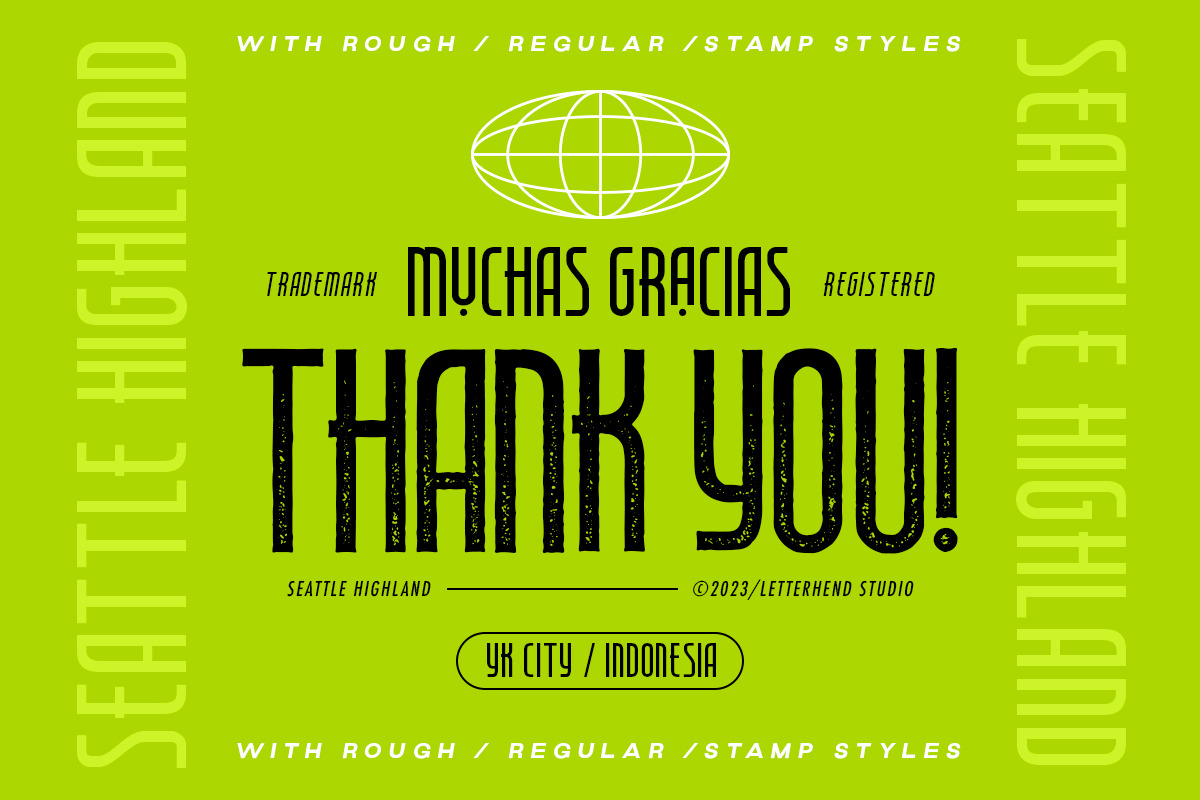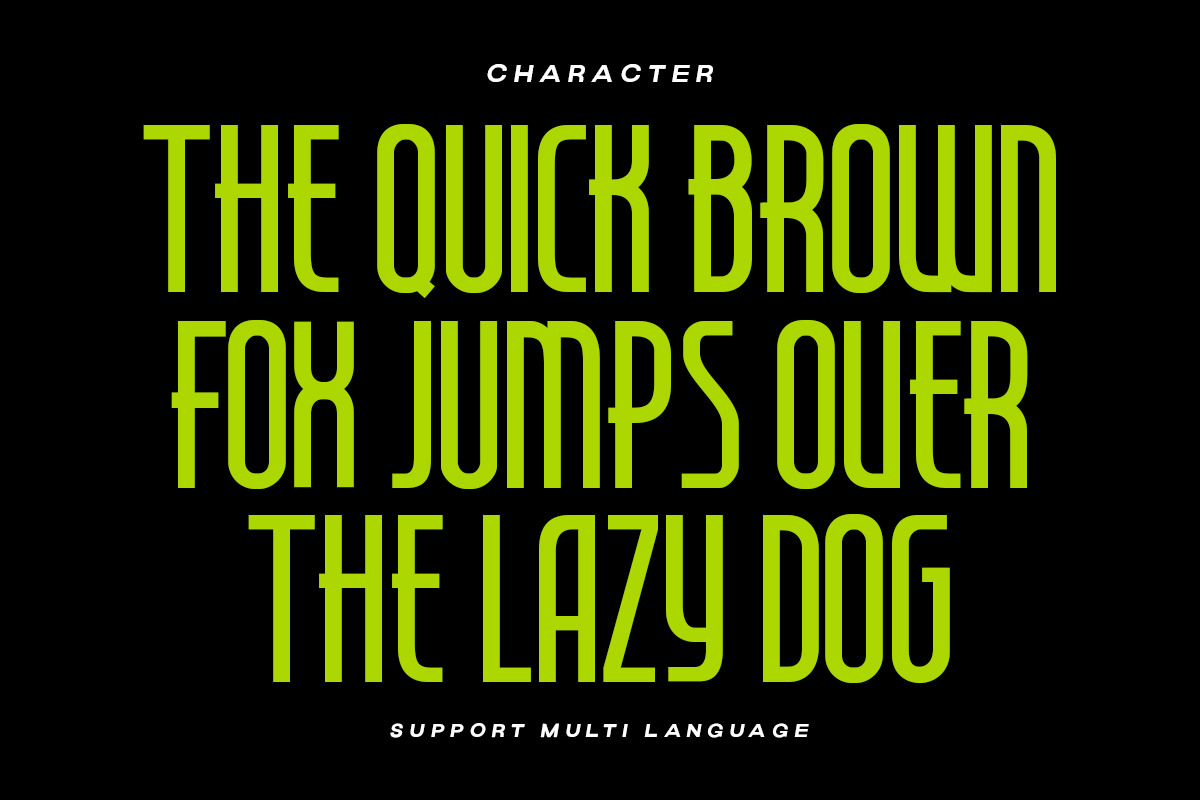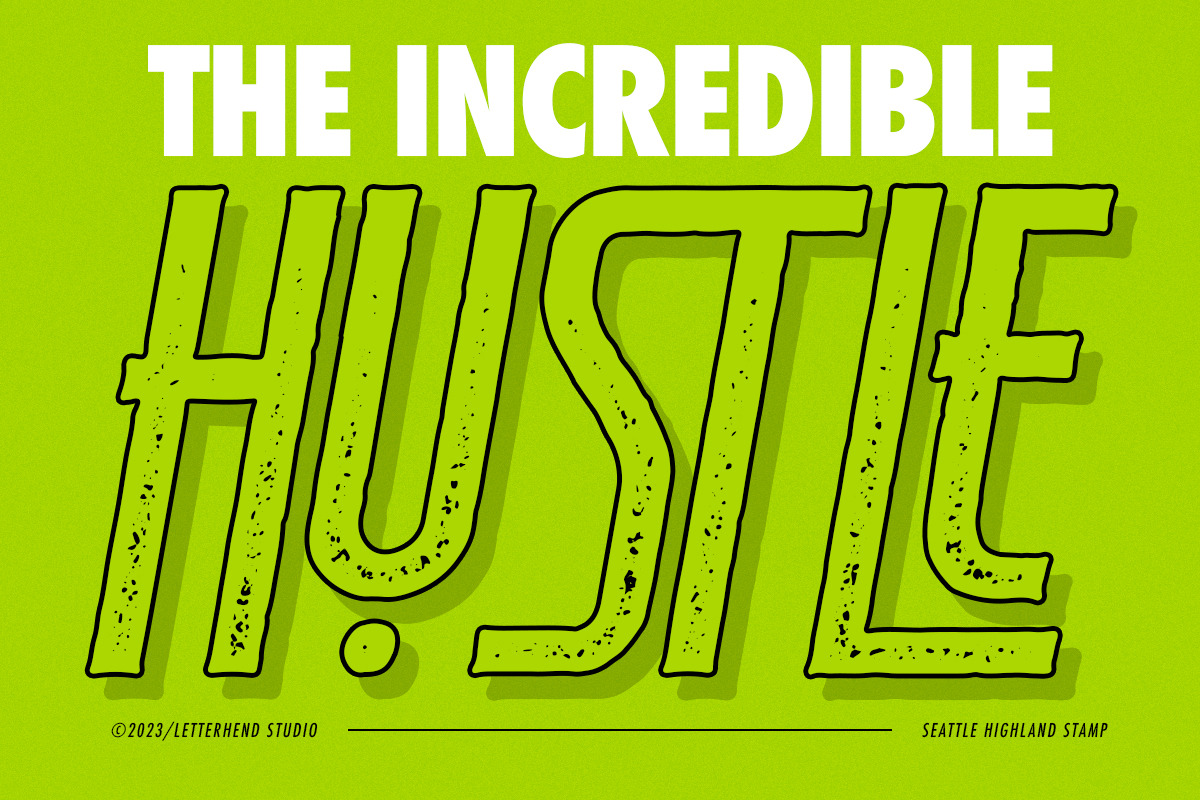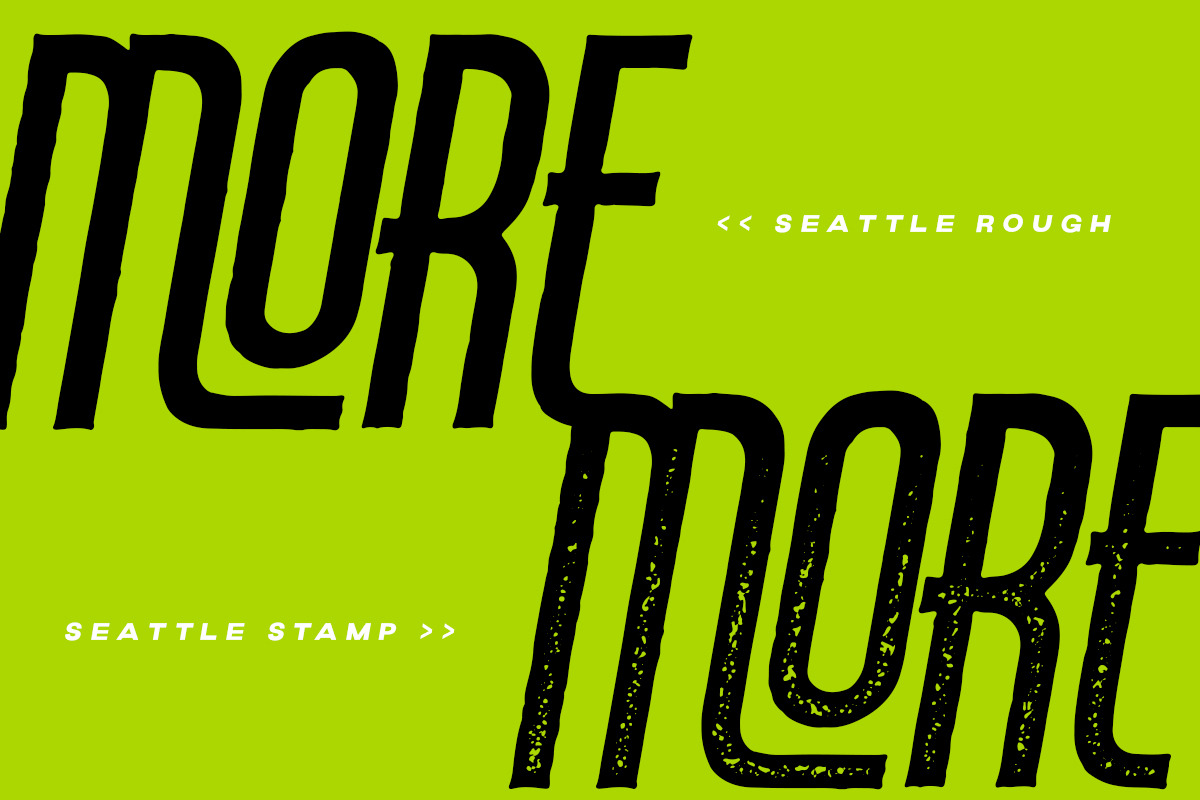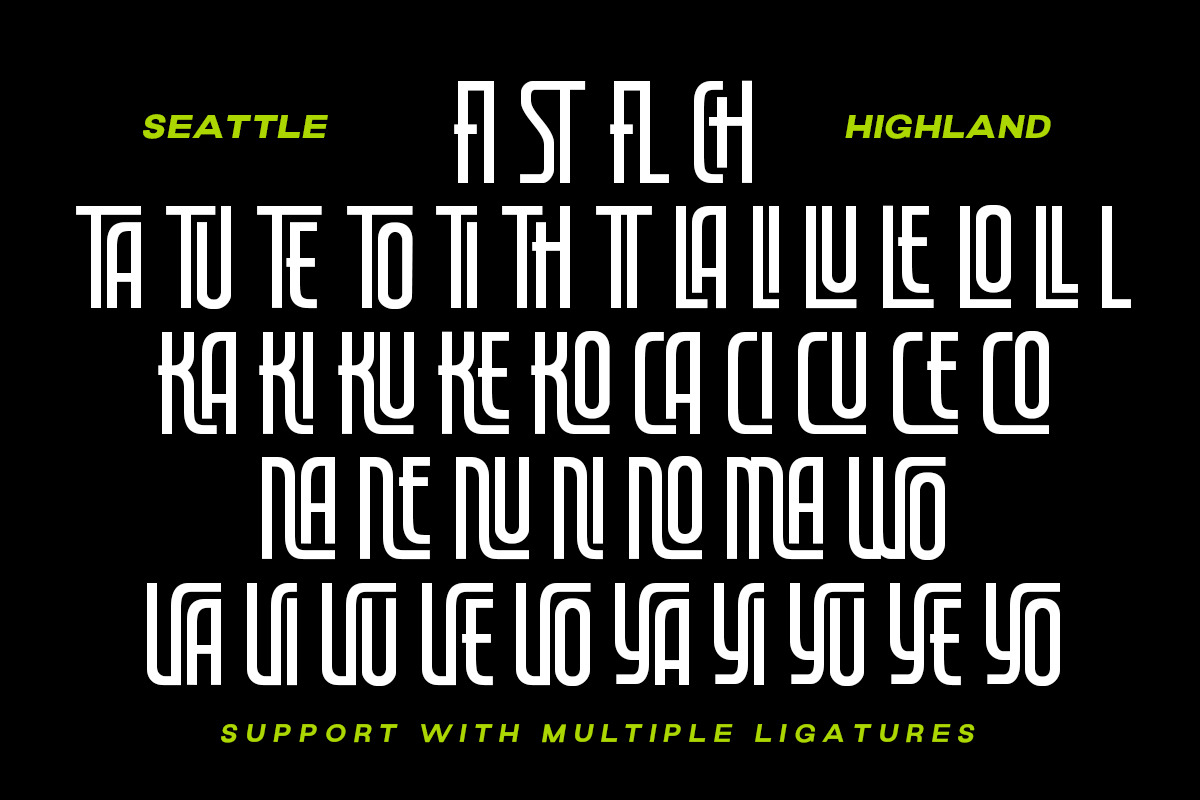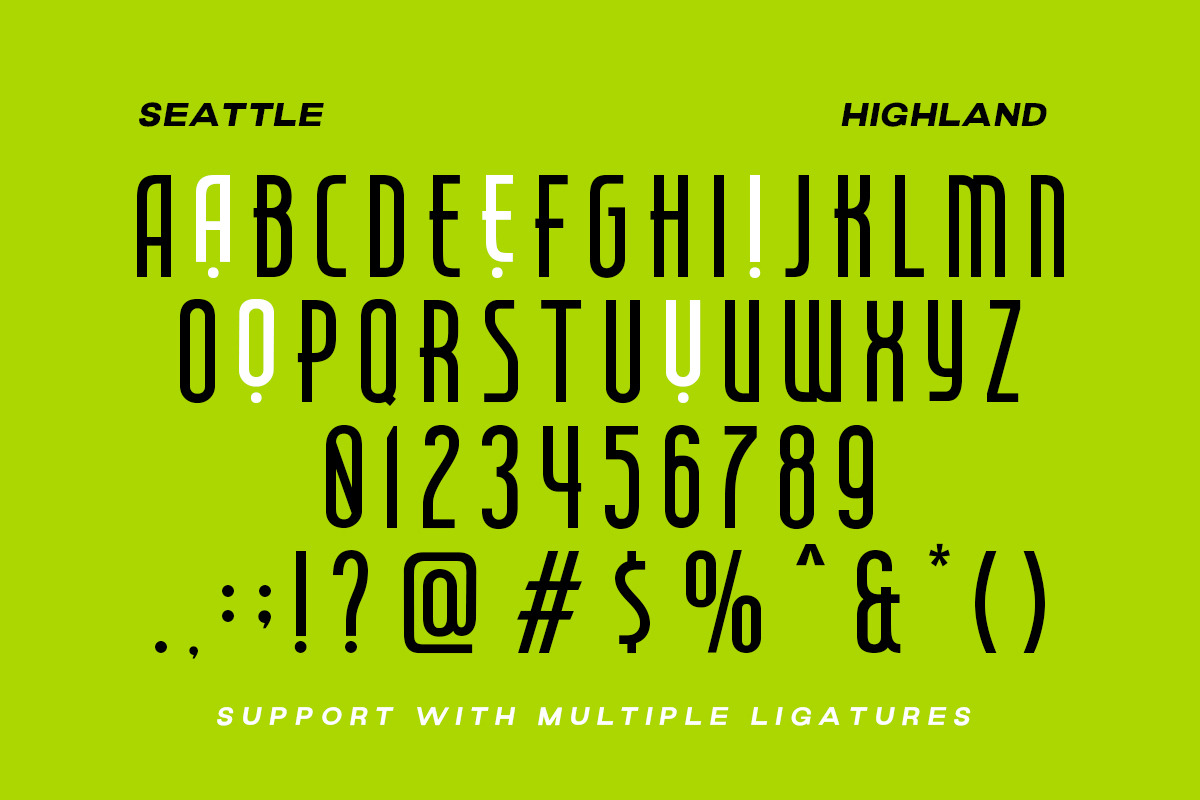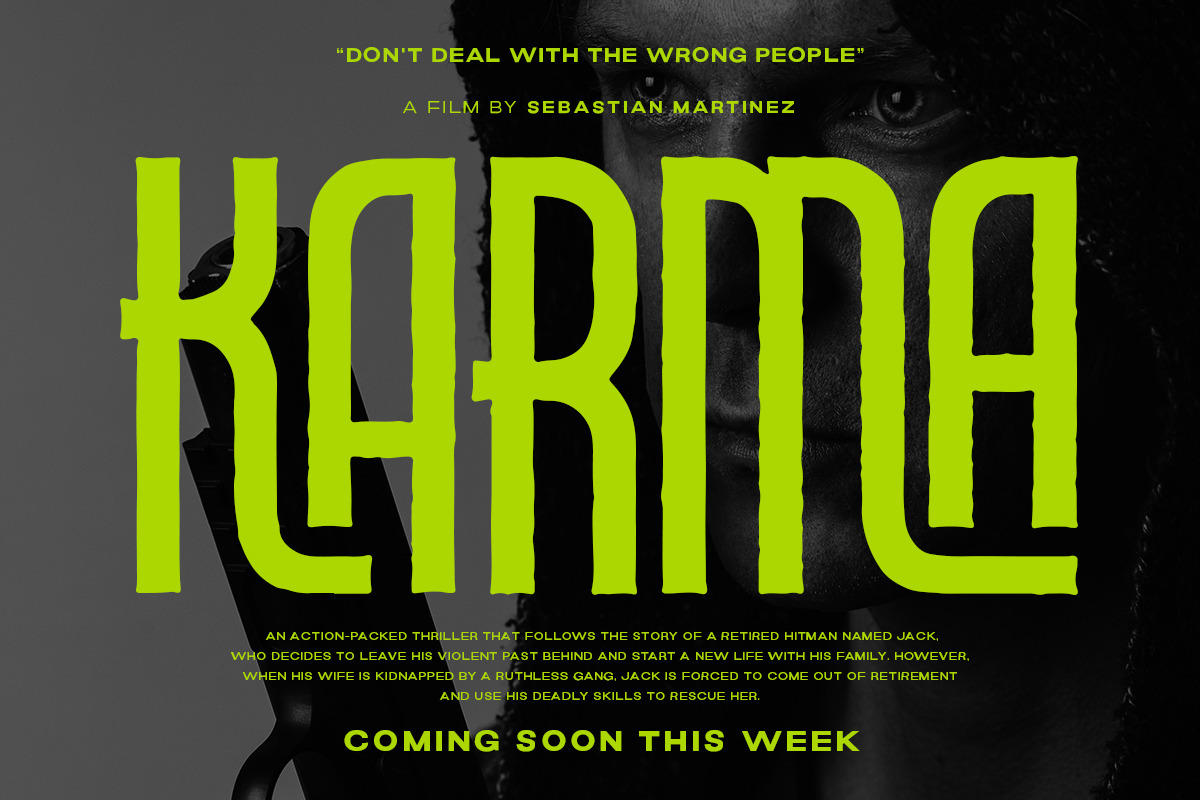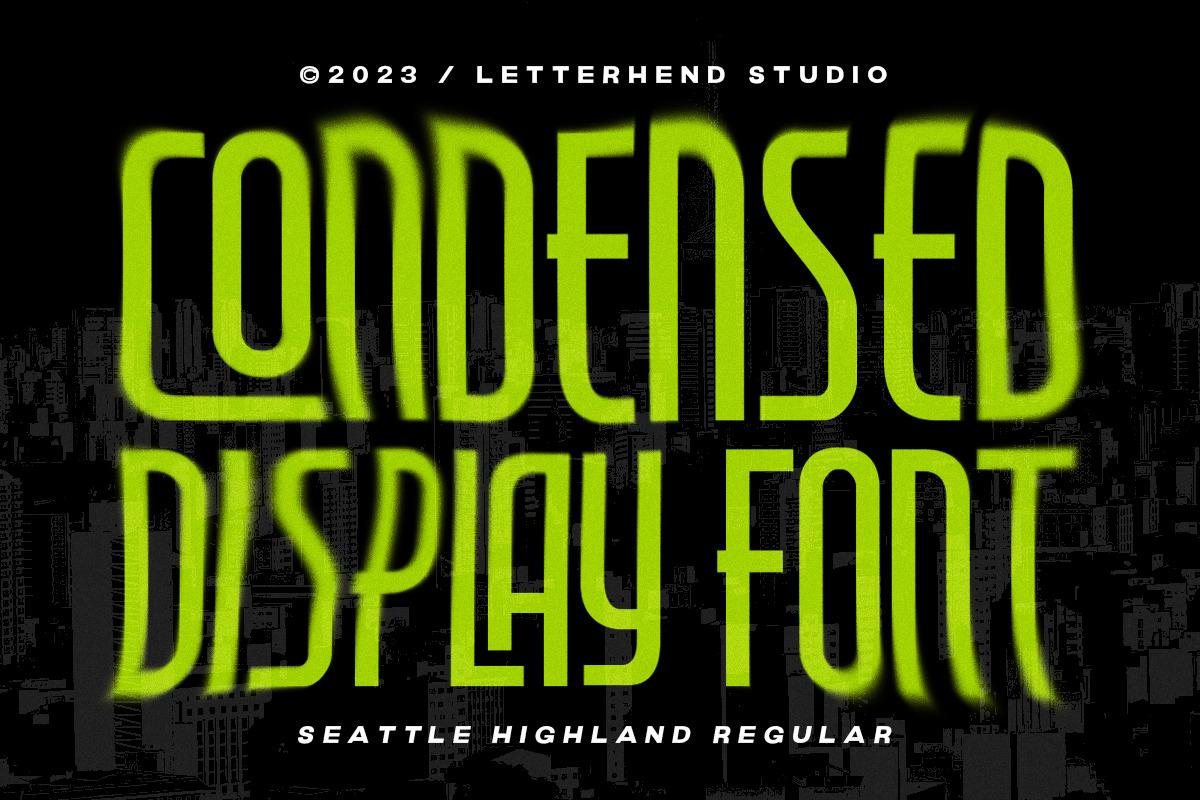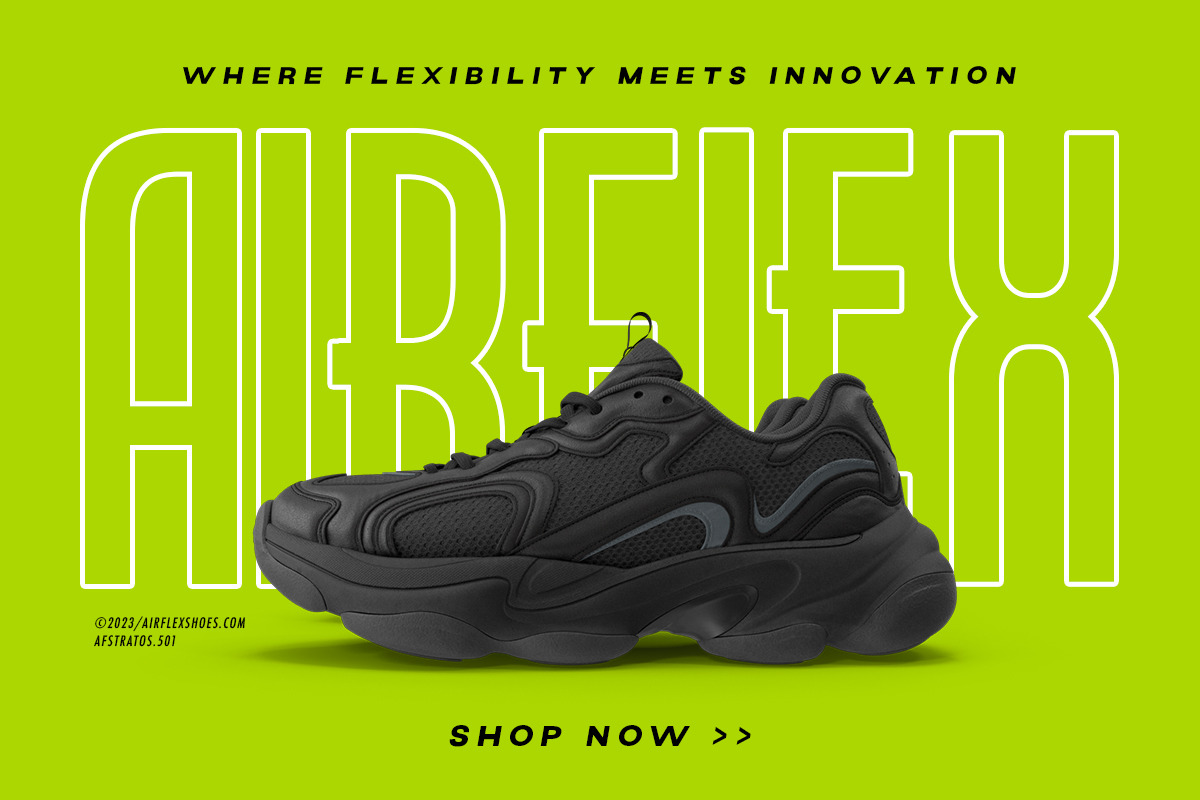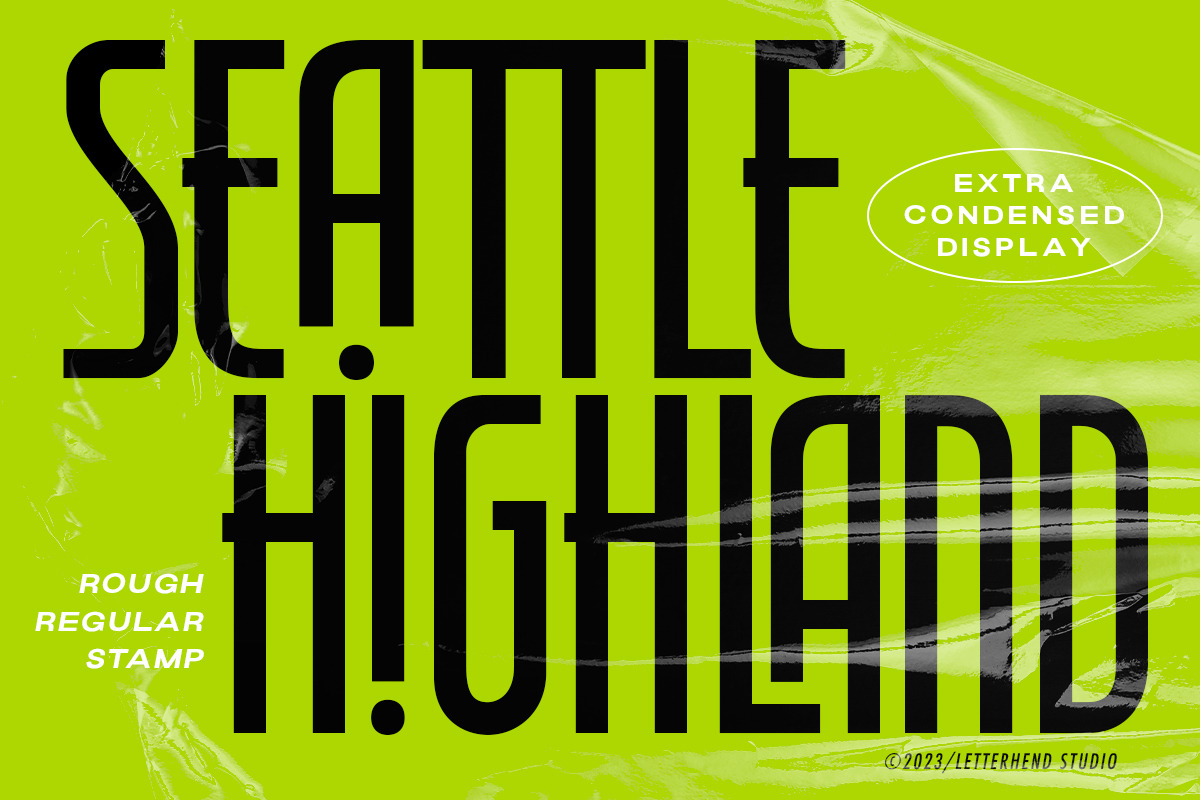
Seattle Highland - Condensed Font
Introducing, The epitome of modernity in this extras condensed display font, Seattle Highland. With its clean and crisp appearance, it exudes a sense of modernity and sophistication . It comes with unique rough and stamp style, add a touch of ruggedness, making it a font that effortlessly bridges the gap between cool and contemporary.